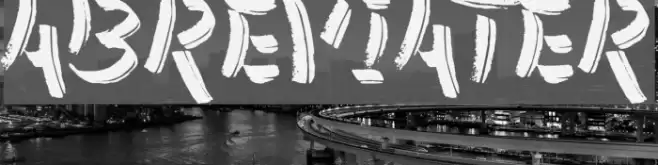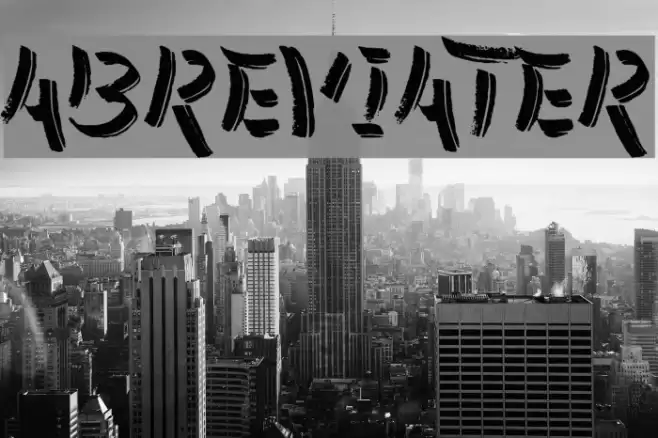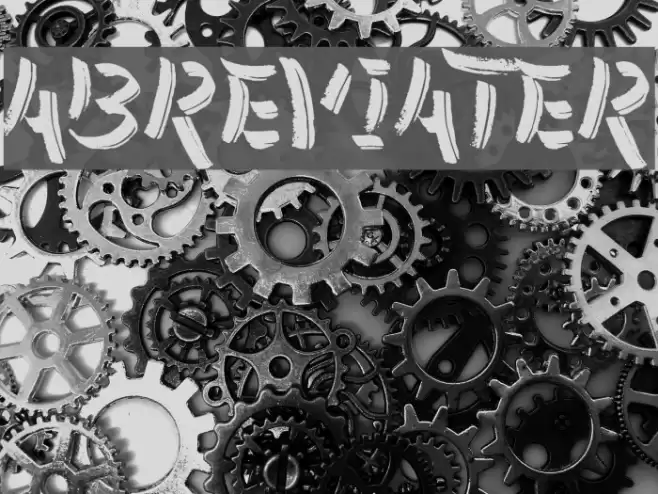
Abreviater Font
Abreviater Description
This font features a bold, brushstroke style that exudes a sense of energy and dynamism. The characters are crafted with a rough, textured appearance, reminiscent of hand-painted lettering. Each letter has a unique, artistic flair, with varying stroke widths that add to its expressive nature. The uppercase and lowercase letters maintain a consistent style, while the numbers and special characters integrate seamlessly into the overall design. This font is ideal for projects that require a bold statement or a creative, artistic touch.
A bold, brushstroke font with a textured, artistic style from Uncategorized fonts.
- Proposed Projects: Perfect for posters, album covers, branding, and creative design projects.
- Overall Style: Artistic, Energetic
- Use Case: Headlines, Logos, Creative Designs